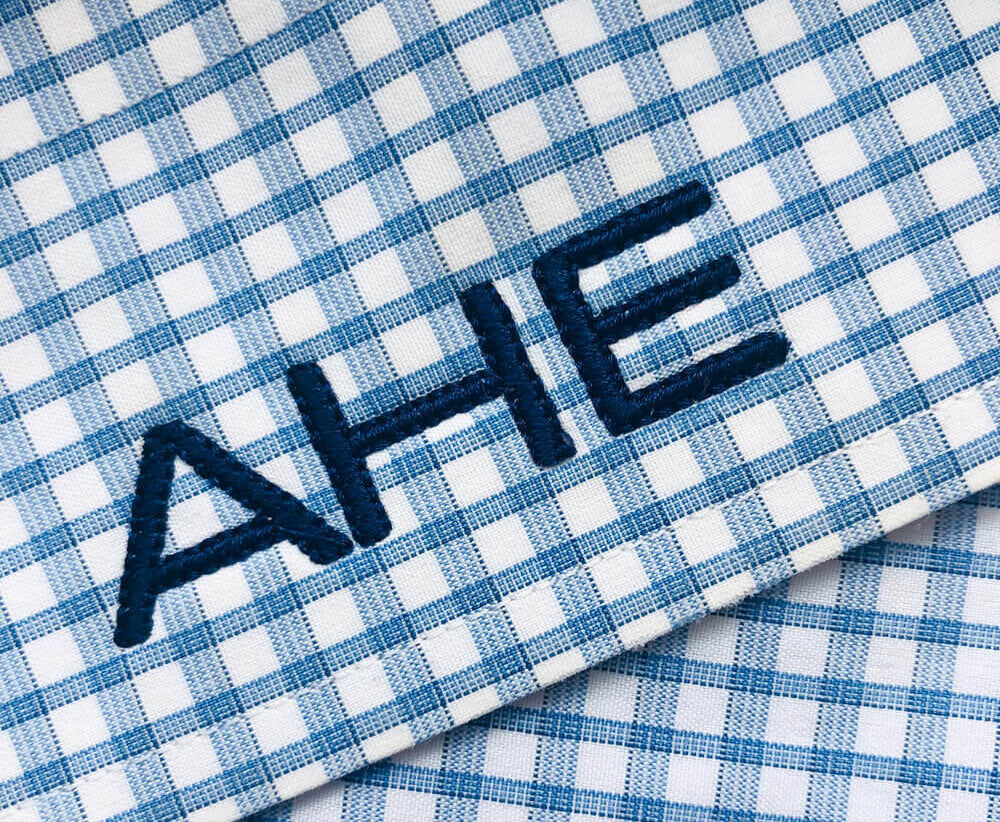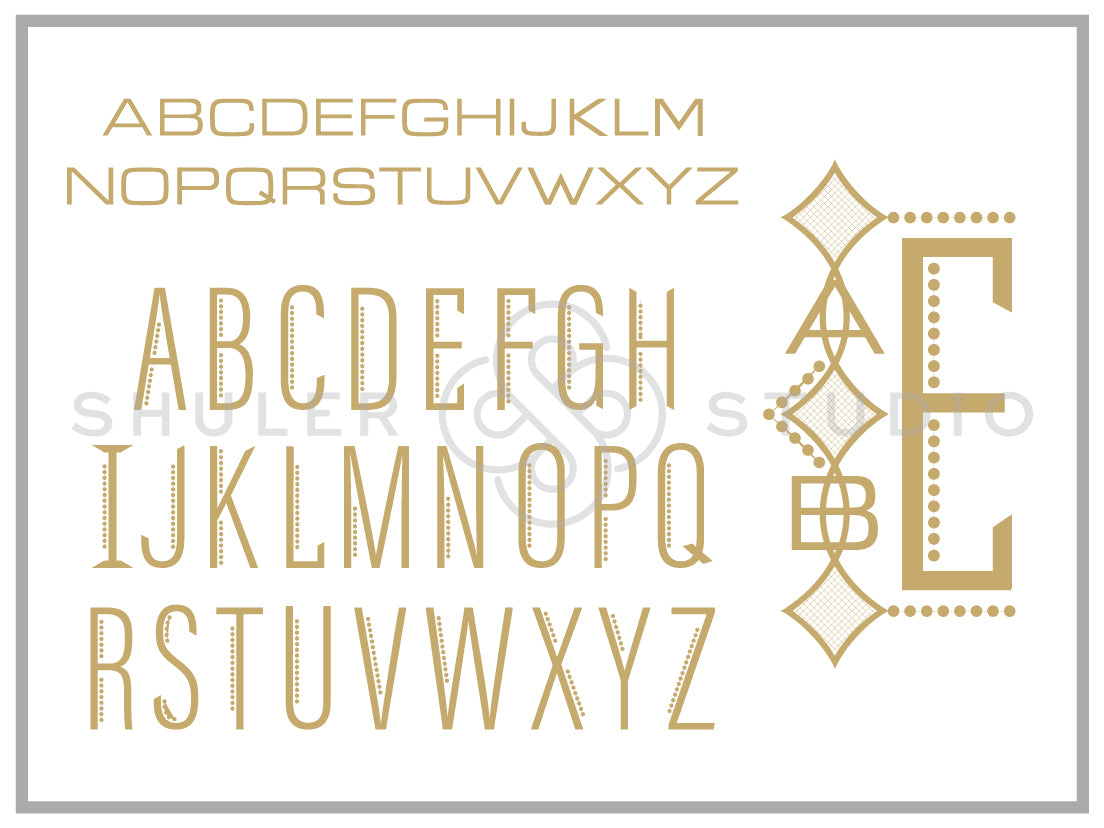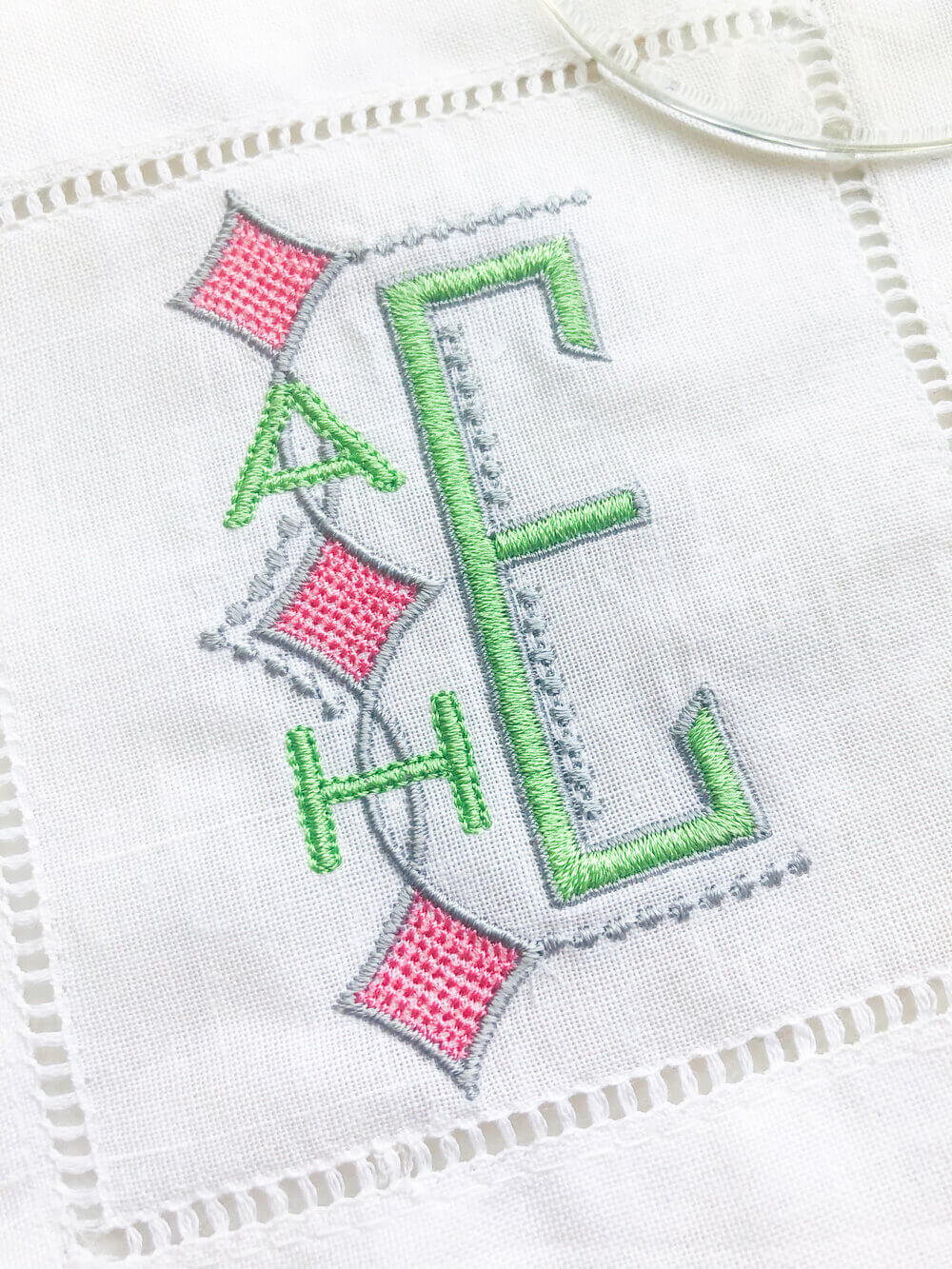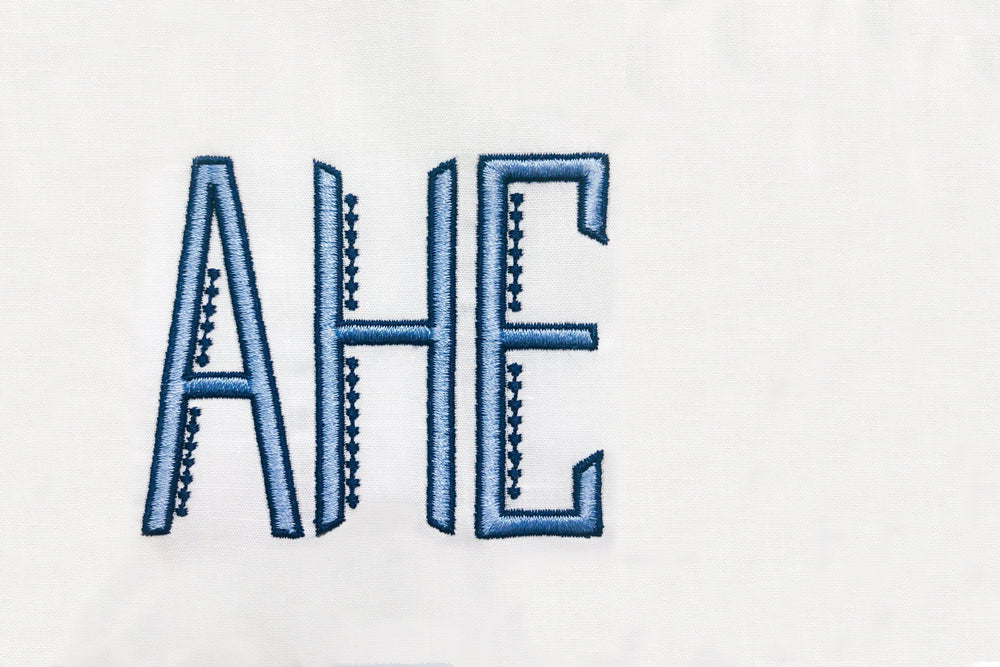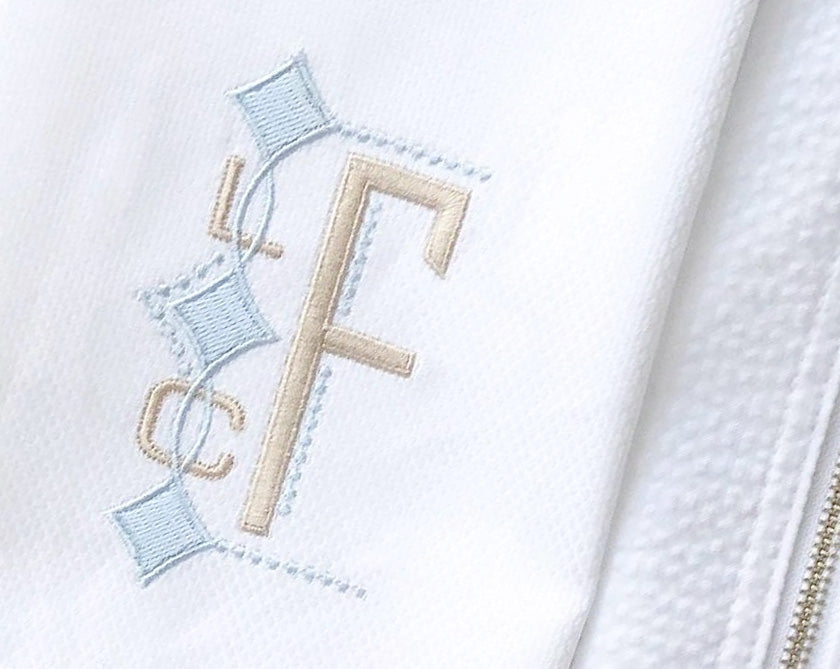
Monogram Retro Font for Embroidery
Our Monogram Retro Font is a package overflowing with designs that you can use in a variety of ways. You get two font packages in one!
All letters and the frame are color-separated. The dot motif can be removed from the Tall Letters. So many possibilities in this package!
• 26 Small Letters with a single stitch outline - .5”, .66”, and .8” height
• 26 Tall Letters with a satin stitch outline and dot motif - 2.44”, 3.17”, and 3.83” height
• Retro Frame in 3.5”, 4.5”, and 5.5” height
Perfect for embroidery, the careful attention in the digitization of each design makes personalization unique and beautiful!